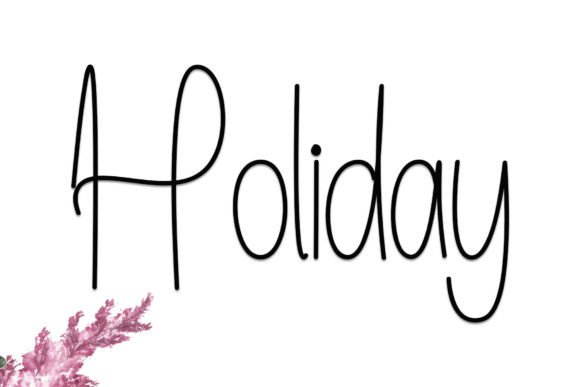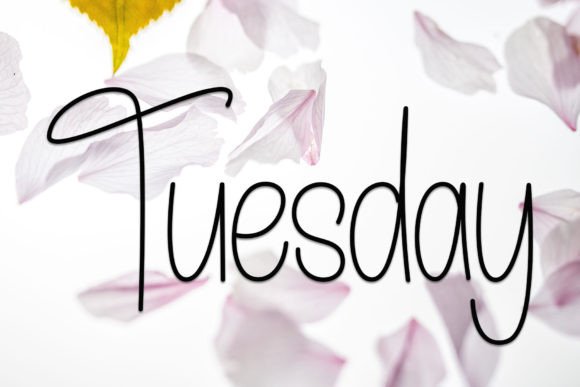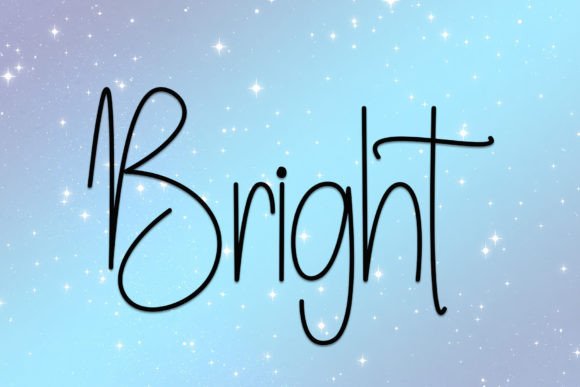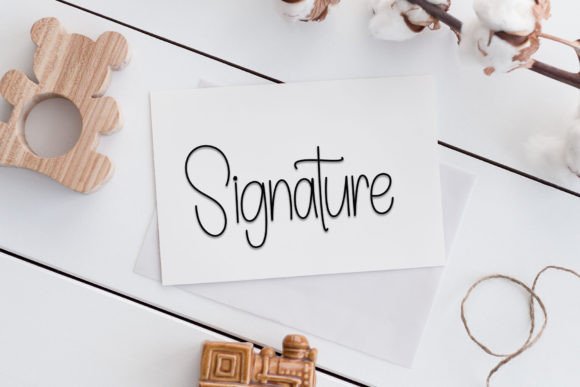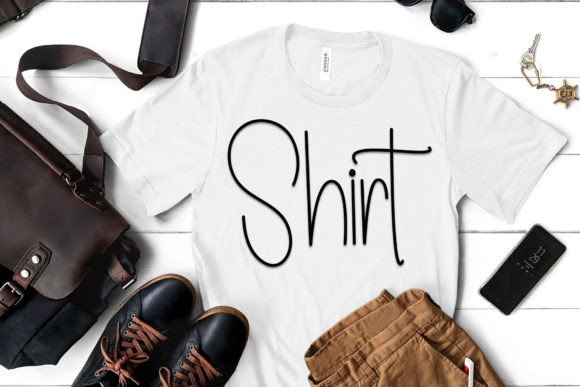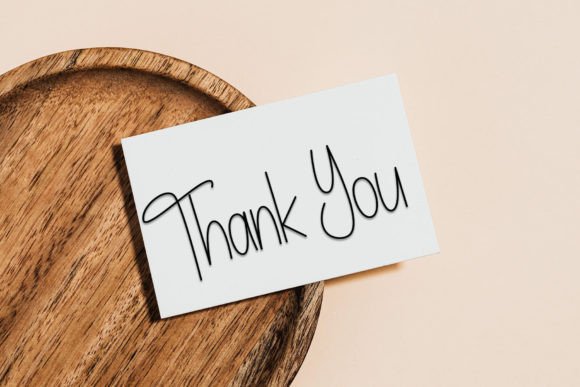
Bacon Font: Elevate Your Designs with a Stylish Handwritten Touch
In the realm of typography, few fonts manage to capture the essence of both classic elegance and modern flair. Bacon Font is one such typographic gem that seamlessly blends timeless calligraphy with a contemporary atmosphere, making it an impeccable choice for designers and crafters looking to add a touch of sophistication to their projects.
Inspiration from Timeless Classic Calligraphy
Bacon Font draws its inspiration from the traditional art of calligraphy, a discipline that has been perfected over centuries. The font’s design pays homage to the classic scripts of the past while infusing them with a modern twist. This blend of old and new results in a stylish handwritten font that exudes both elegance and a fresh, contemporary vibe.
Design Characteristics: Balanced and Varied
One of the standout features of Bacon Font is its balanced and varied design. The creator has meticulously crafted each letterform to ensure that the font is not only aesthetically pleasing but also highly legible. The characters are designed to flow smoothly into one another, creating a harmonious and visually appealing text that enhances the beauty of any project.
PUA Encoding for Easy Access to Glyphs and Ligatures
Bacon Font is PUA (Private Use Area) encoded, which is a significant advantage for designers. PUA encoding allows for easy access to all the amazing glyphs and ligatures that the font has to offer. This means that users can effortlessly incorporate a wide range of special characters and decorative elements into their designs, adding depth and uniqueness to their work.
Ideal for a Variety of Projects
The versatility of Bacon Font makes it suitable for a wide range of projects. Whether you’re working on a branding campaign, a website design, a print project, or a digital craft, this font can elevate your work to new heights. Its stylish and contemporary feel makes it particularly well-suited for projects that require a touch of elegance and sophistication.
Advantages for Designers and Crafters
- Elegance and Versatility: Bacon Font brings a level of elegance and versatility to any project, making it a valuable addition to any designer’s toolkit.
- Unique Designs: The font’s varied and balanced design ensures that each project stands out, offering a unique aesthetic that captures the audience’s attention.
How to Use Bacon Font Effectively
To make the most of Bacon Font, consider the following tips:
- Pair it with Complementary Fonts: Bacon Font works well when paired with simpler, sans-serif fonts. This contrast enhances the overall visual appeal of your design.
- Experiment with Sizes and Colors: Don’t be afraid to experiment with different sizes and colors. Bacon Font’s versatility shines when used in various contexts.
- Utilize Glyphs and Ligatures: Take advantage of the PUA encoding to incorporate glyphs and ligatures into your design. These elements can add a unique touch to your project.
Bacon Font is a stylish handwritten font that brings a touch of classic elegance and modern flair to any project. Its balanced and varied design, coupled with PUA encoding for easy access to glyphs and ligatures, makes it an invaluable resource for designers and crafters. Whether you’re looking to create a sophisticated brand identity, a stunning website, or a beautiful print project, Bacon Font is sure to enhance the beauty and impact of your work.